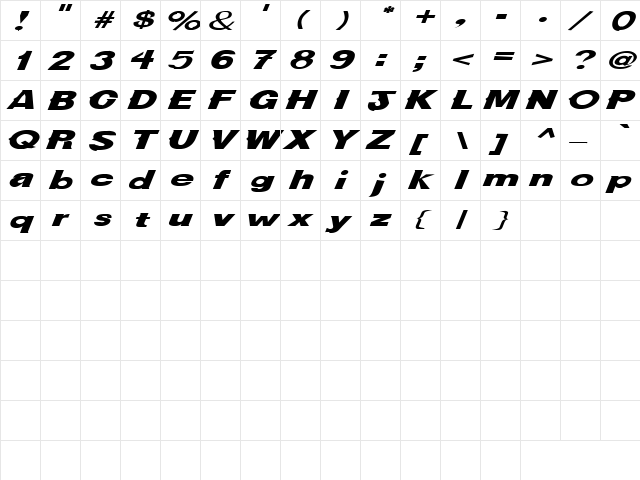
Own Way 1 Italic
Design Context for Own Way 1 Typeface
Own Way 1 takes a measured approach to typography — its balanced proportions and neutral character make it a reliable workhorse for both digital and print work. The slanted form adds forward momentum and visual energy.
Pro Tip: Try Own Way 1 for annotation and caption copy alongside an upright companion — the contrast in angle creates a dynamic but ordered typographic system.